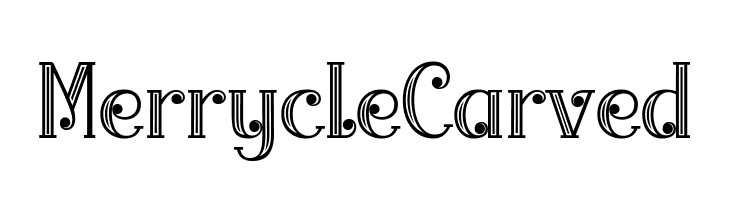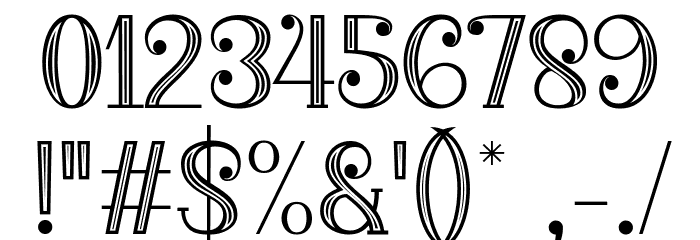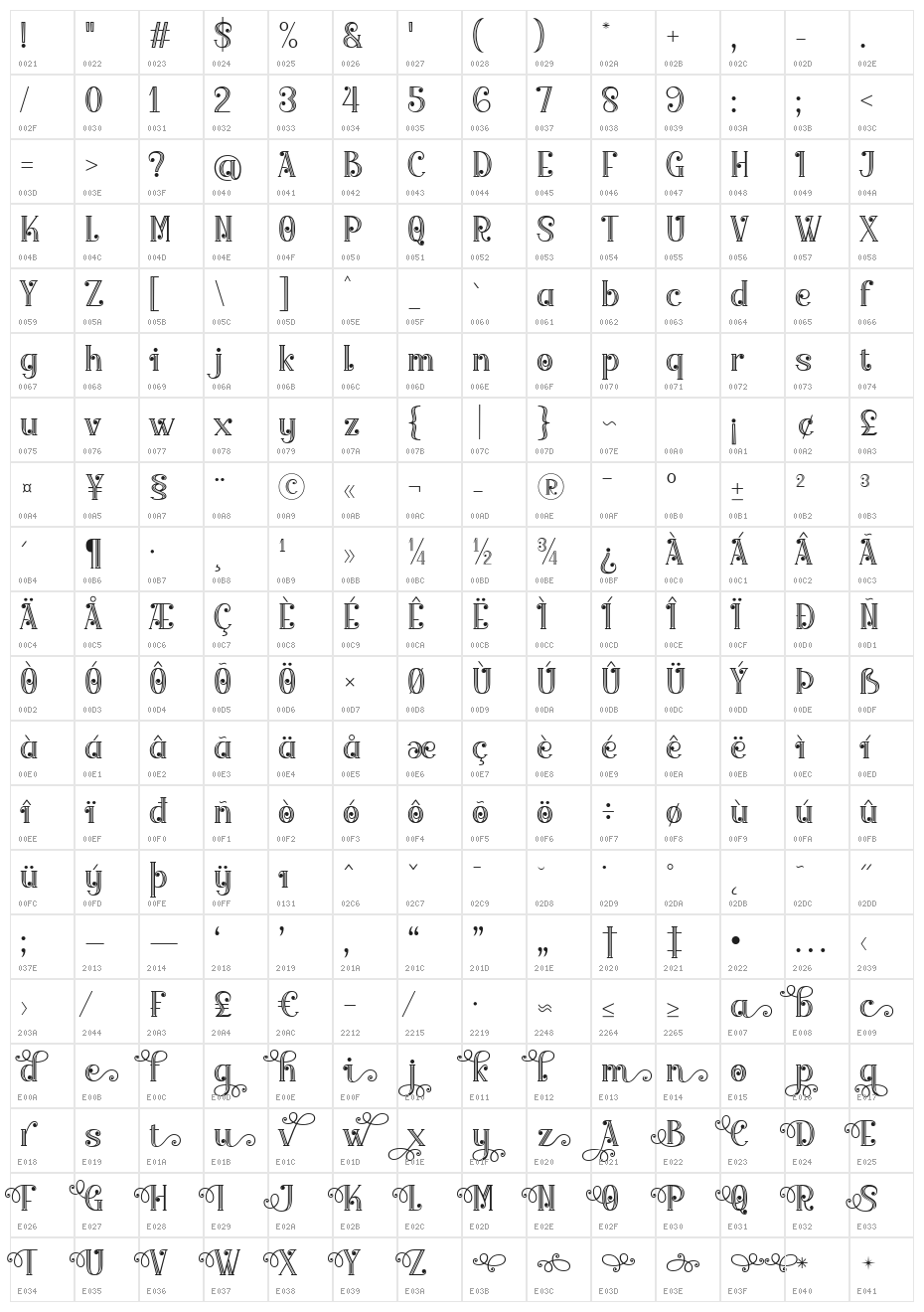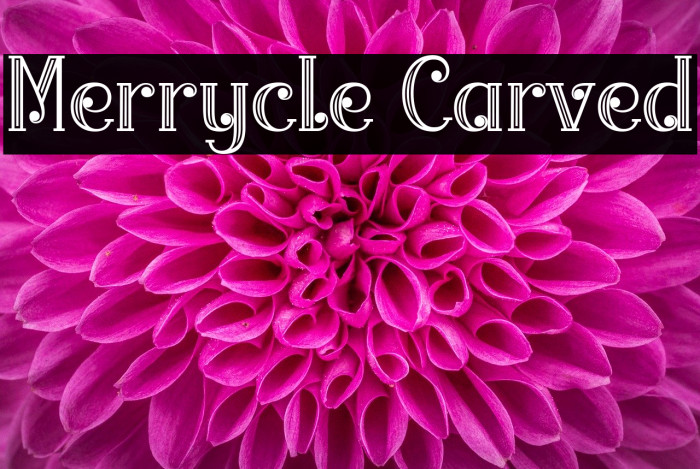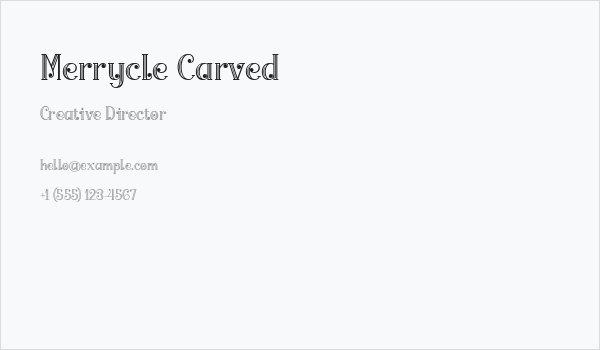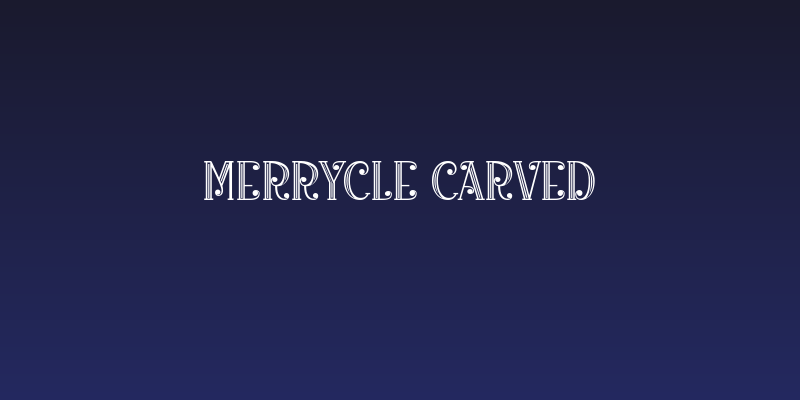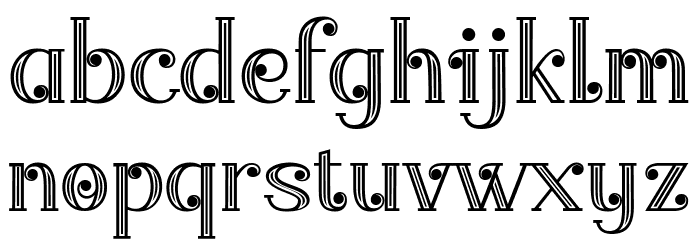
Merrycle Carved Font
Merrycle Carved Description
This font features a unique and decorative style with an intricate carved appearance. The characters are outlined with multiple parallel lines, creating a layered effect that adds depth and dimension. The uppercase and lowercase letters maintain a consistent design, with rounded terminals and a slight flourish on certain characters, enhancing its ornamental quality. The numerals and special characters follow the same aesthetic, ensuring a cohesive look across all glyphs. This font is ideal for projects that require a touch of elegance and sophistication, making it suitable for invitations, branding, and artistic displays.
| Use Case | Headlines, Logos, Artistic Displays |
| Proposed Projects | Ideal for wedding invitations, luxury branding, artistic posters, and decorative signage. |